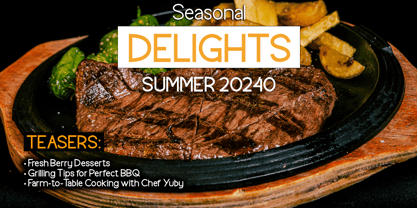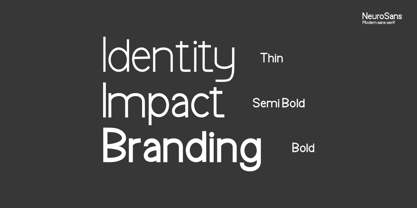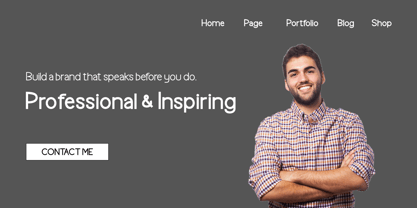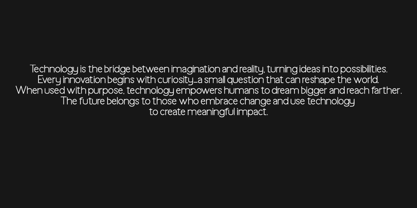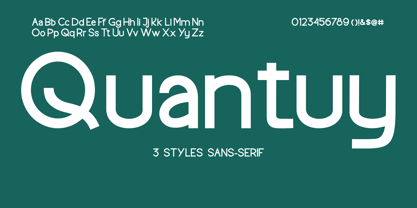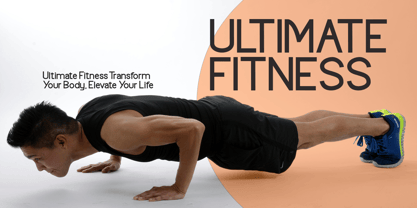
Quantuy
by Fontysia
The Quantuy Font Family was designed by Rizal Aiyub and published by Fontysia. Quantuy contains 3 styles and family package options. More about this family
Quantuy – Modern Sans Serif Font Family Quantuy is a clean, simple, and modern sans serif font family designed for contemporary visual communication. Featuring three essential styles — Thin, Regular, and Bold — Quantuy offers flexibility and consistency for a wide range of creative projects. With balanced proportions, smooth curves, and excellent readability, Quantuy works perfectly for branding, visual identity, logos, headlines, editorial layouts, UI/UX design, websites, presentations, and social media content. The Thin style adds elegance and a minimalist feel, the Regular style ensures clarity and neutrality, while the Bold style delivers strong impact and confident emphasis. Quantuy is ideal for designers looking for a modern, versatile, and professional sans serif typeface that performs beautifully across both digital and print media. Key Features: Modern & minimalist sans serif design Three styles: Thin, Regular, Bold Clean, professional, and versatile High readability for display and text Suitable for branding, web, editorial, and digital design Quantuy is a timeless sans serif font family built to elevate modern branding and clean design systems.
Designers: Rizal Aiyub
Foundry: Fontysia